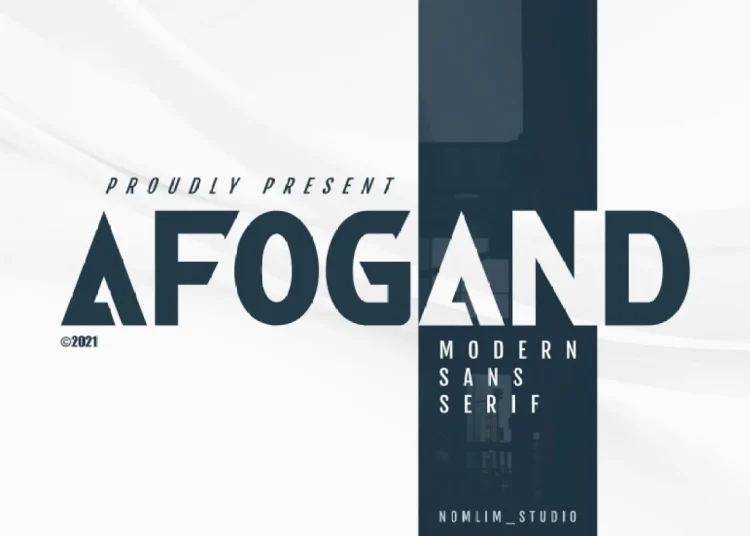
Afogand Font
Afogand is an eye-catching sans serif typeface that effortlessly blends into various design applications. Whether you’re crafting logos, banners, or advertisements, this font will elevate your creative projects, making them more engaging and impactful. Its sleek and modern design ensures it leaves a lasting impression.
Perfect for a wide range of creative ideas, Afogand brings a fresh, contemporary touch to any project.